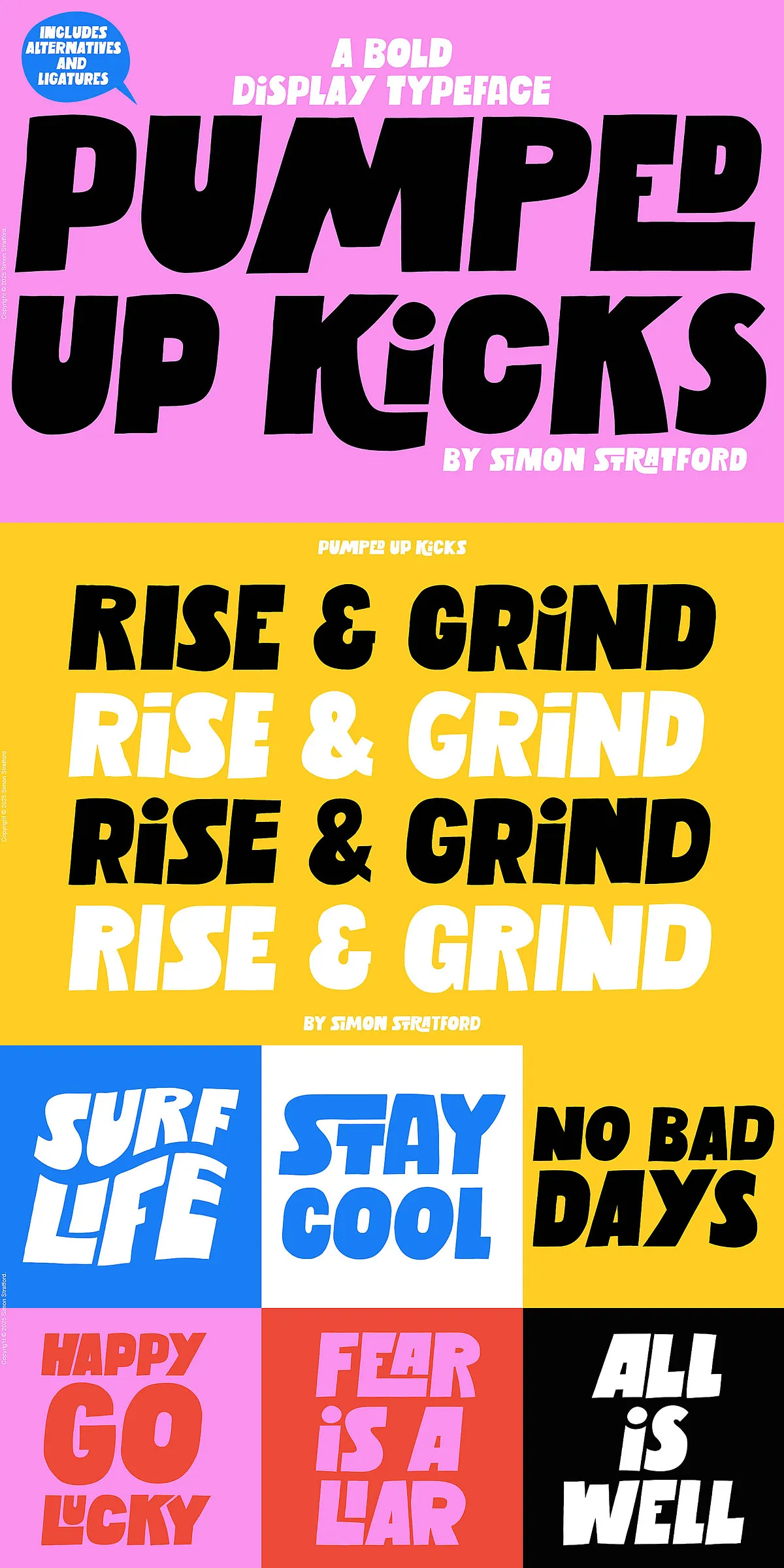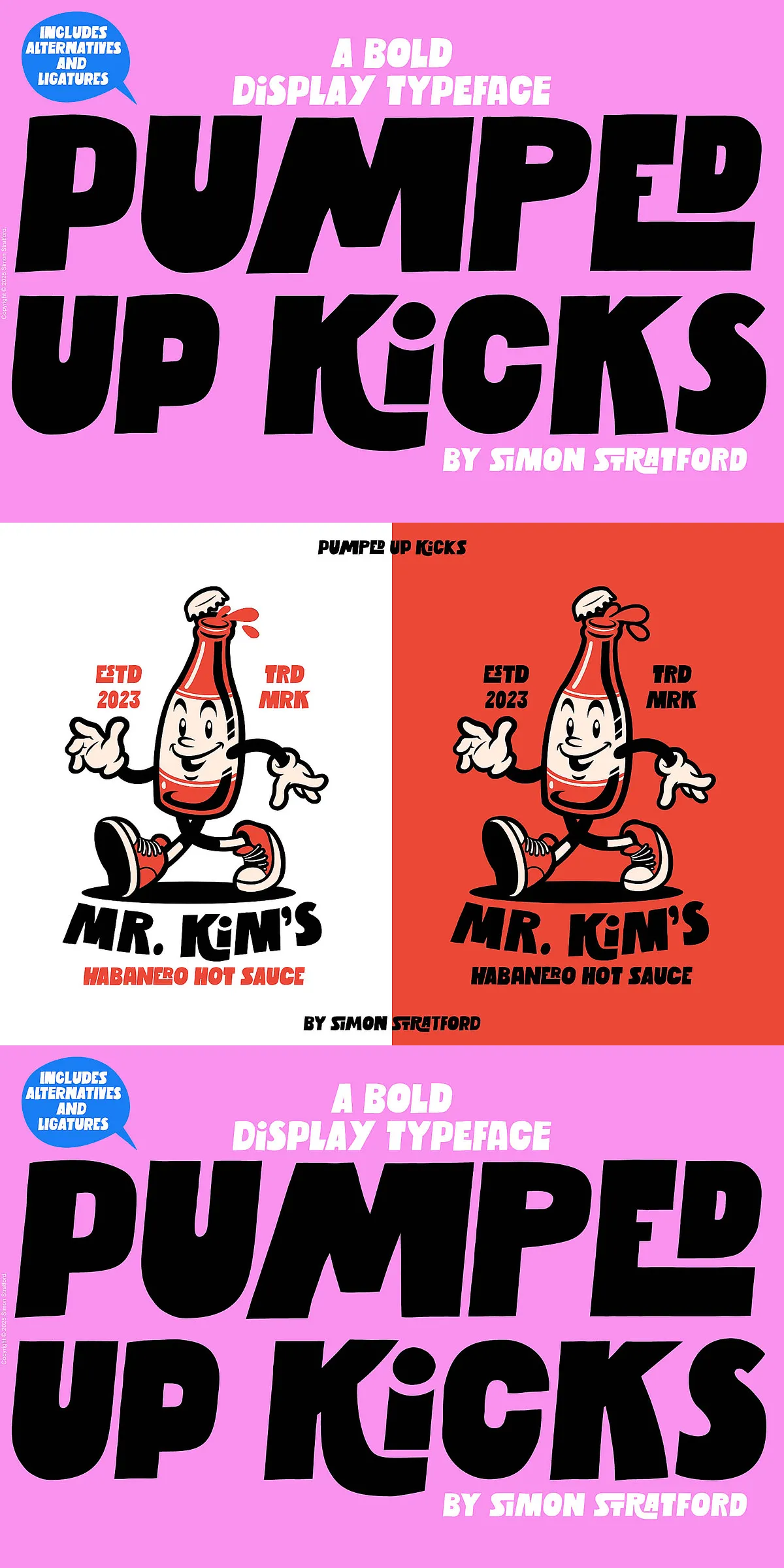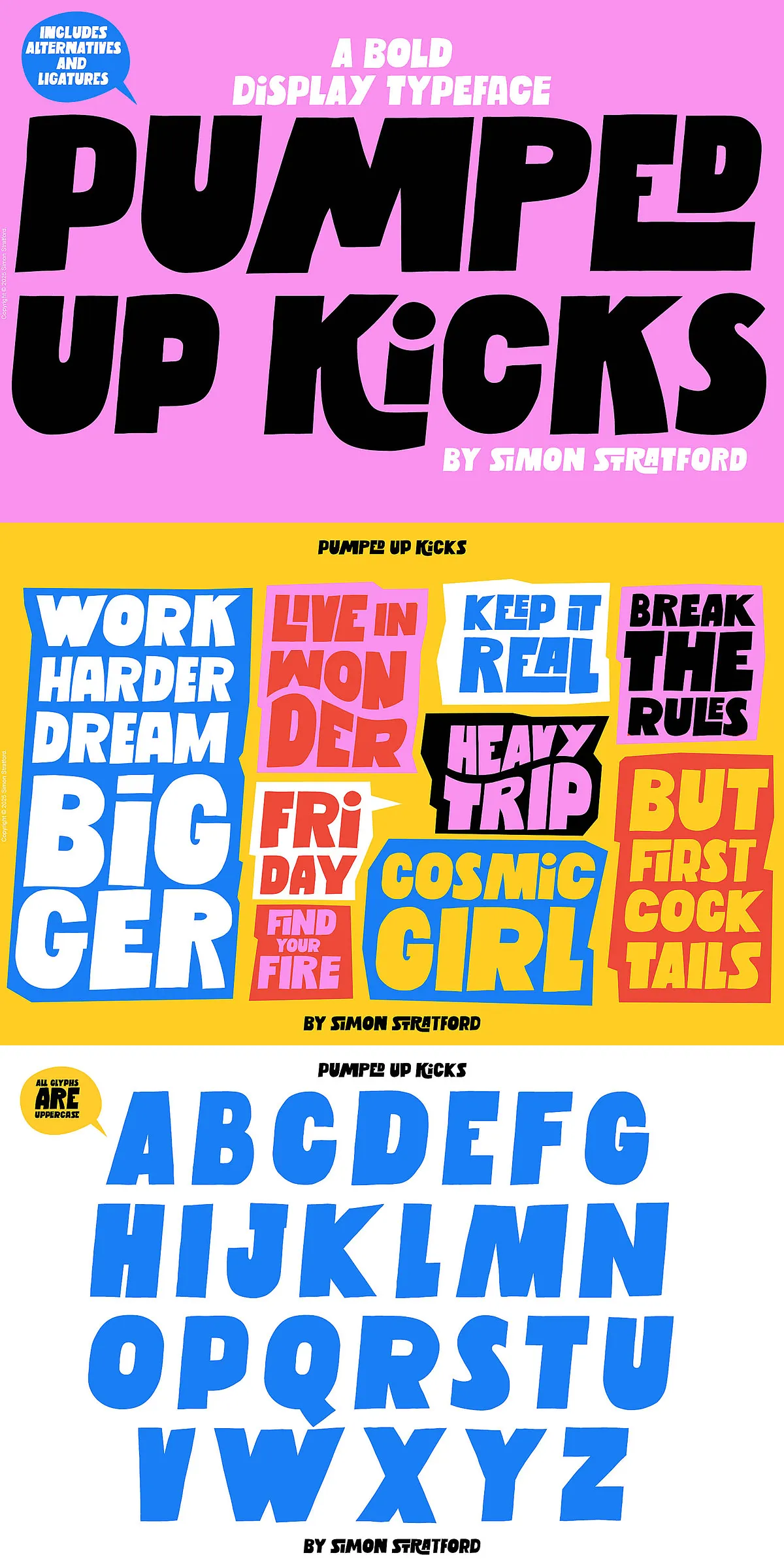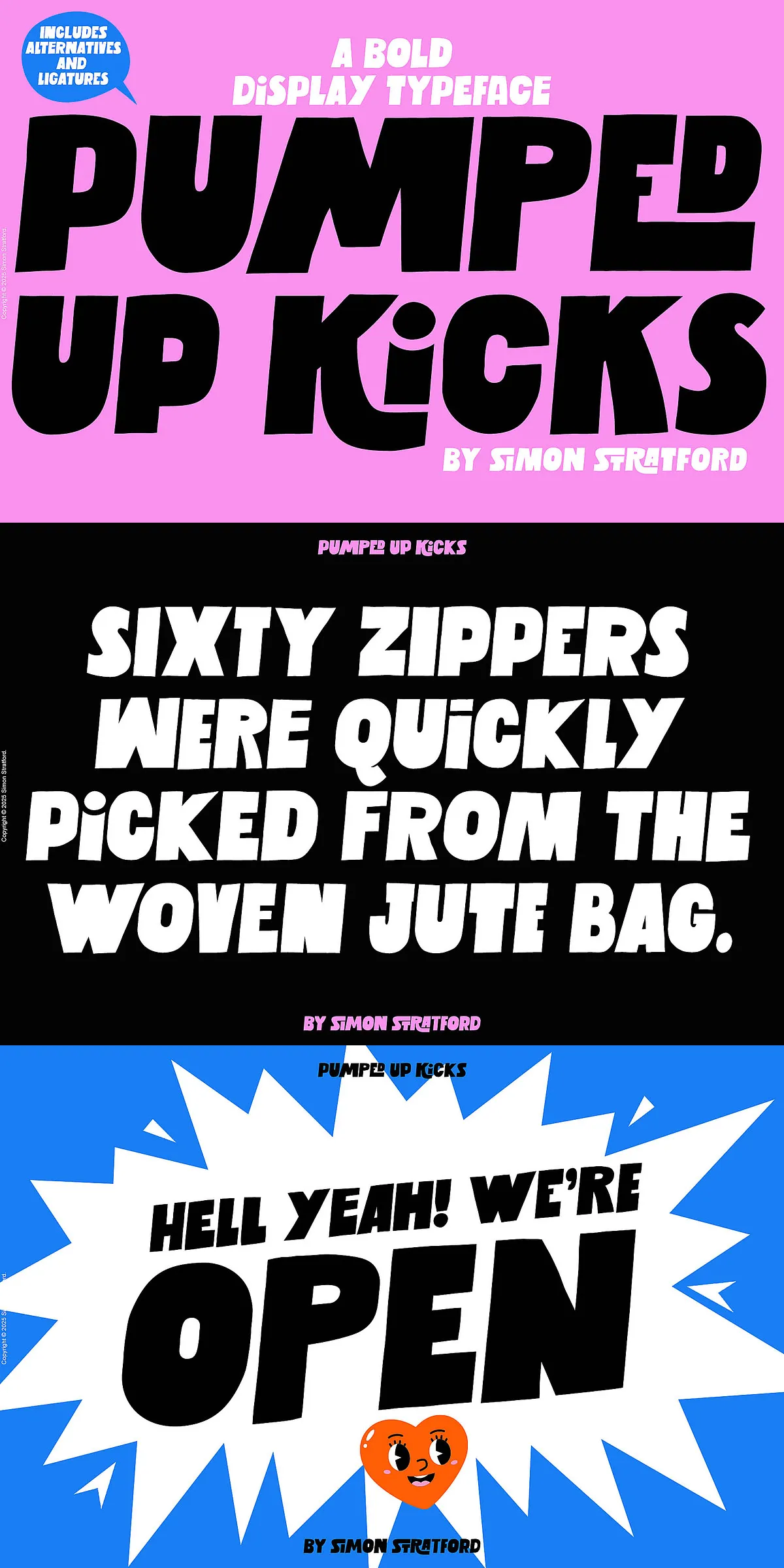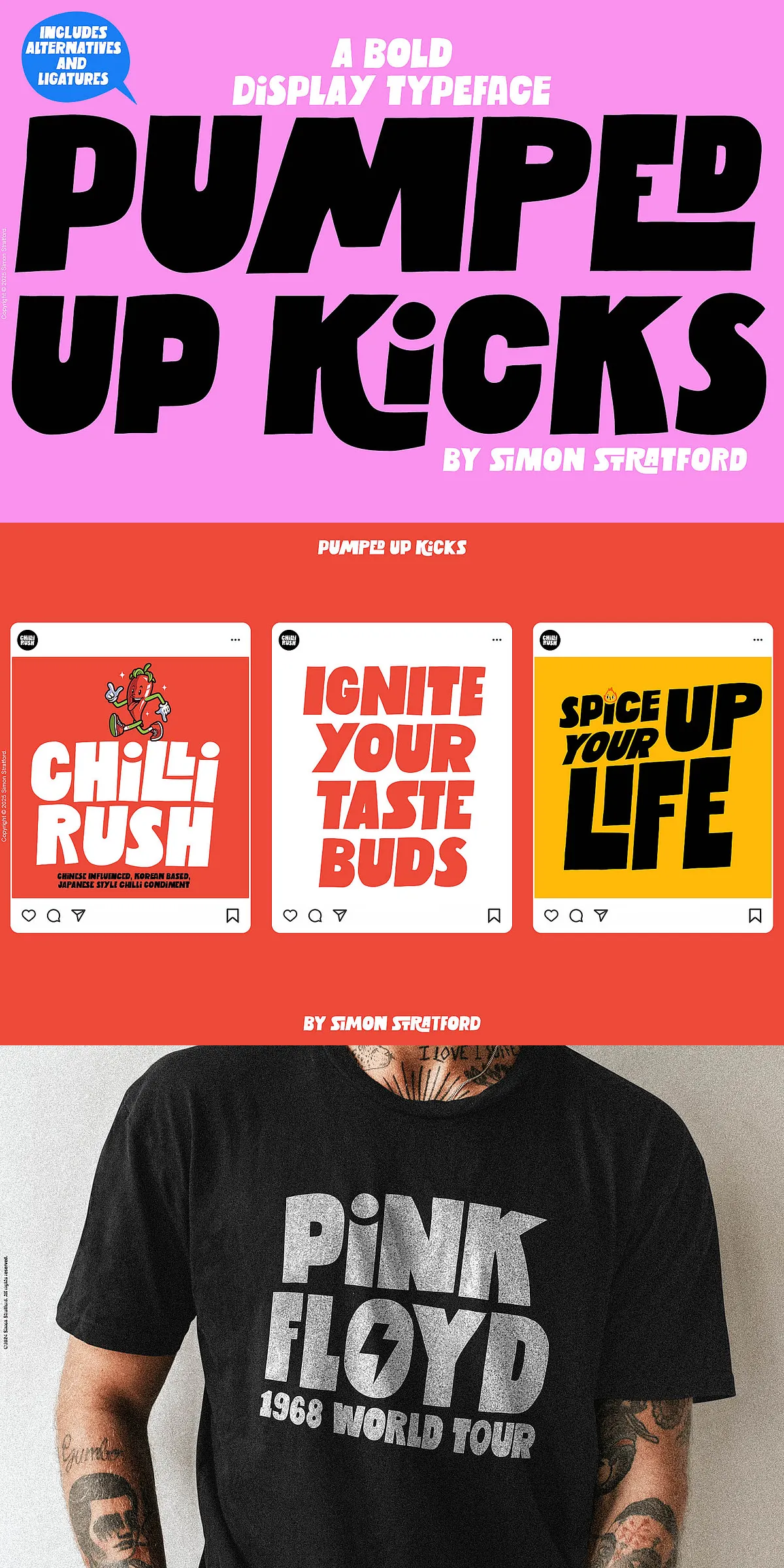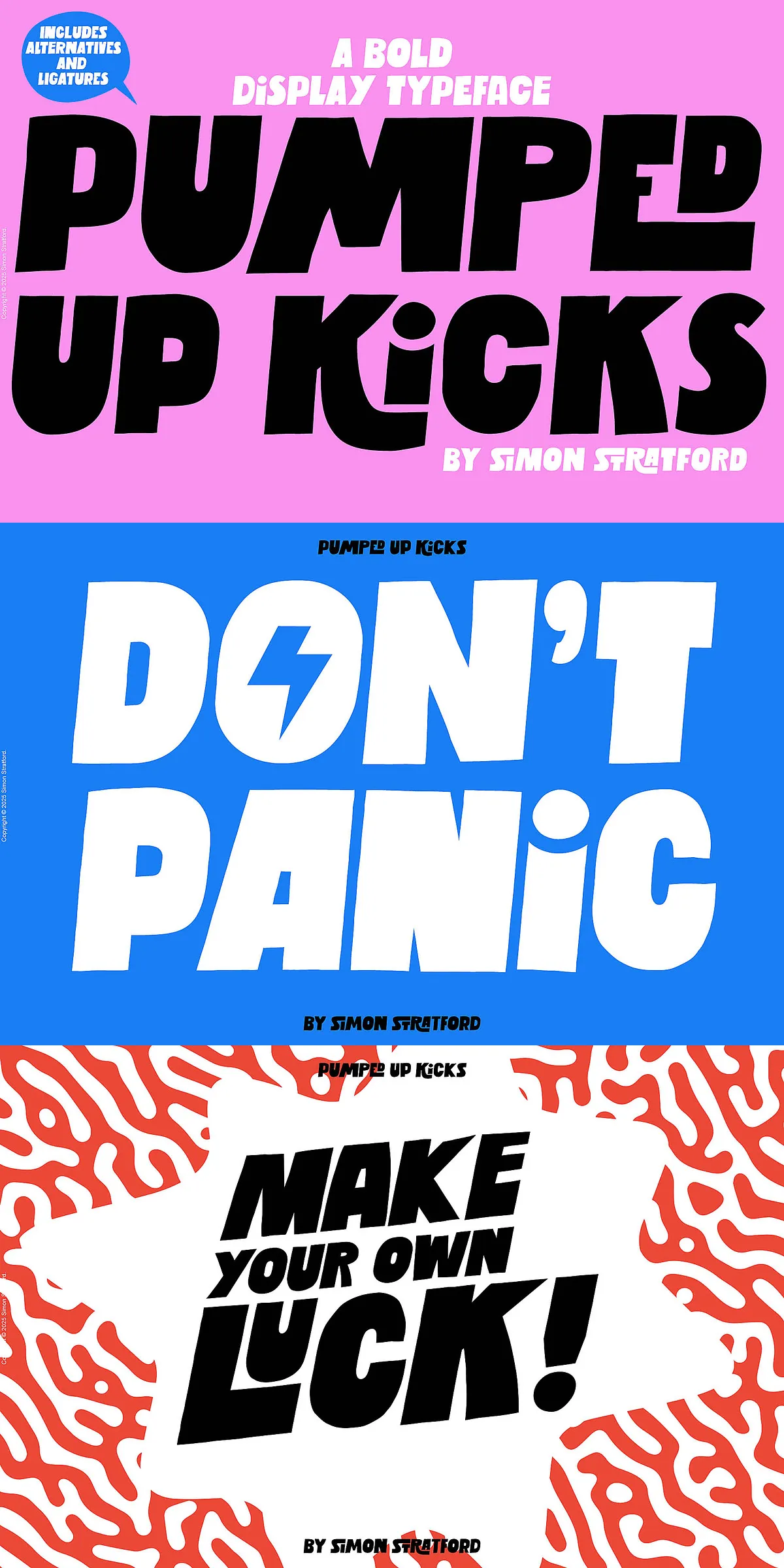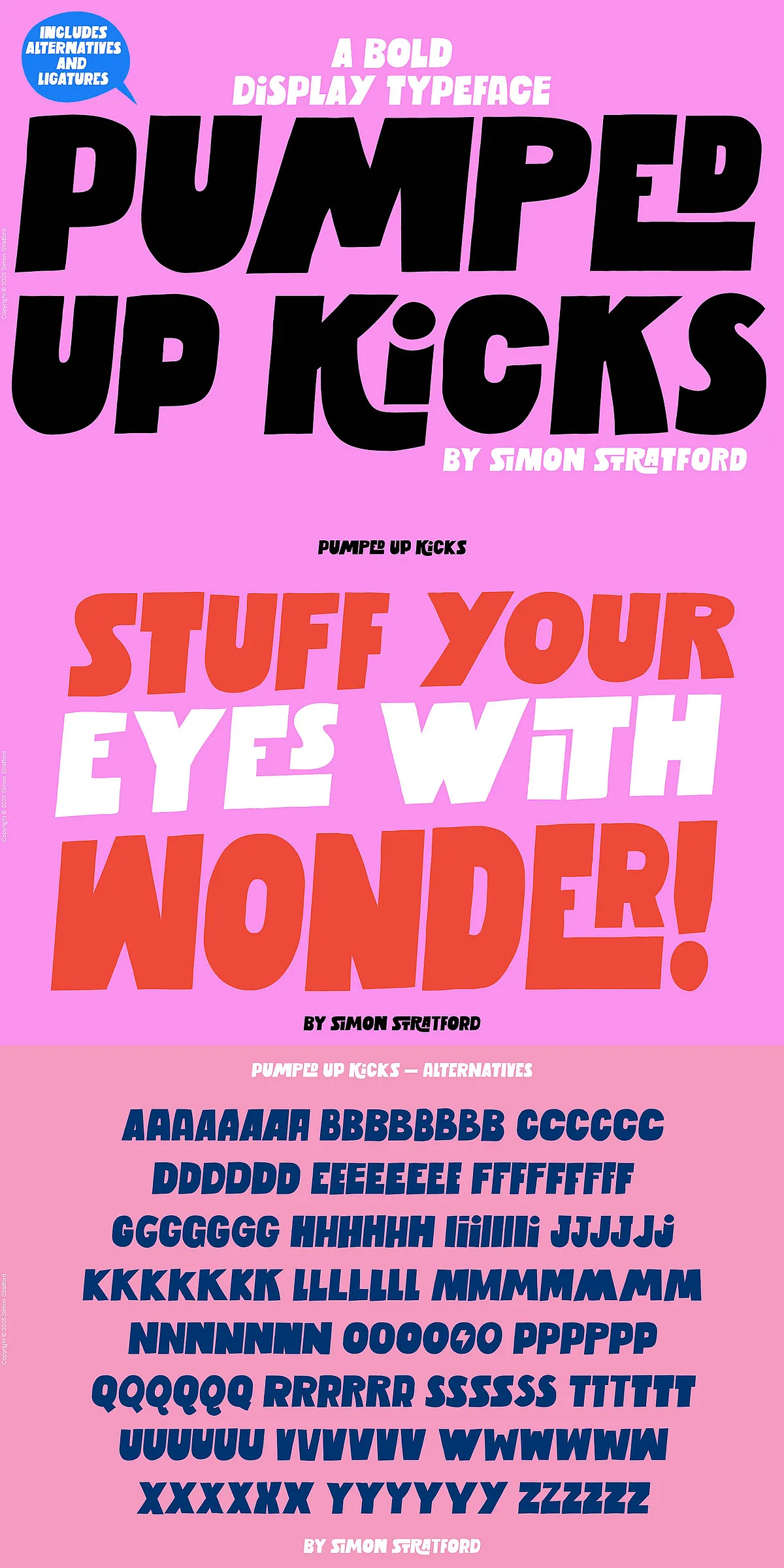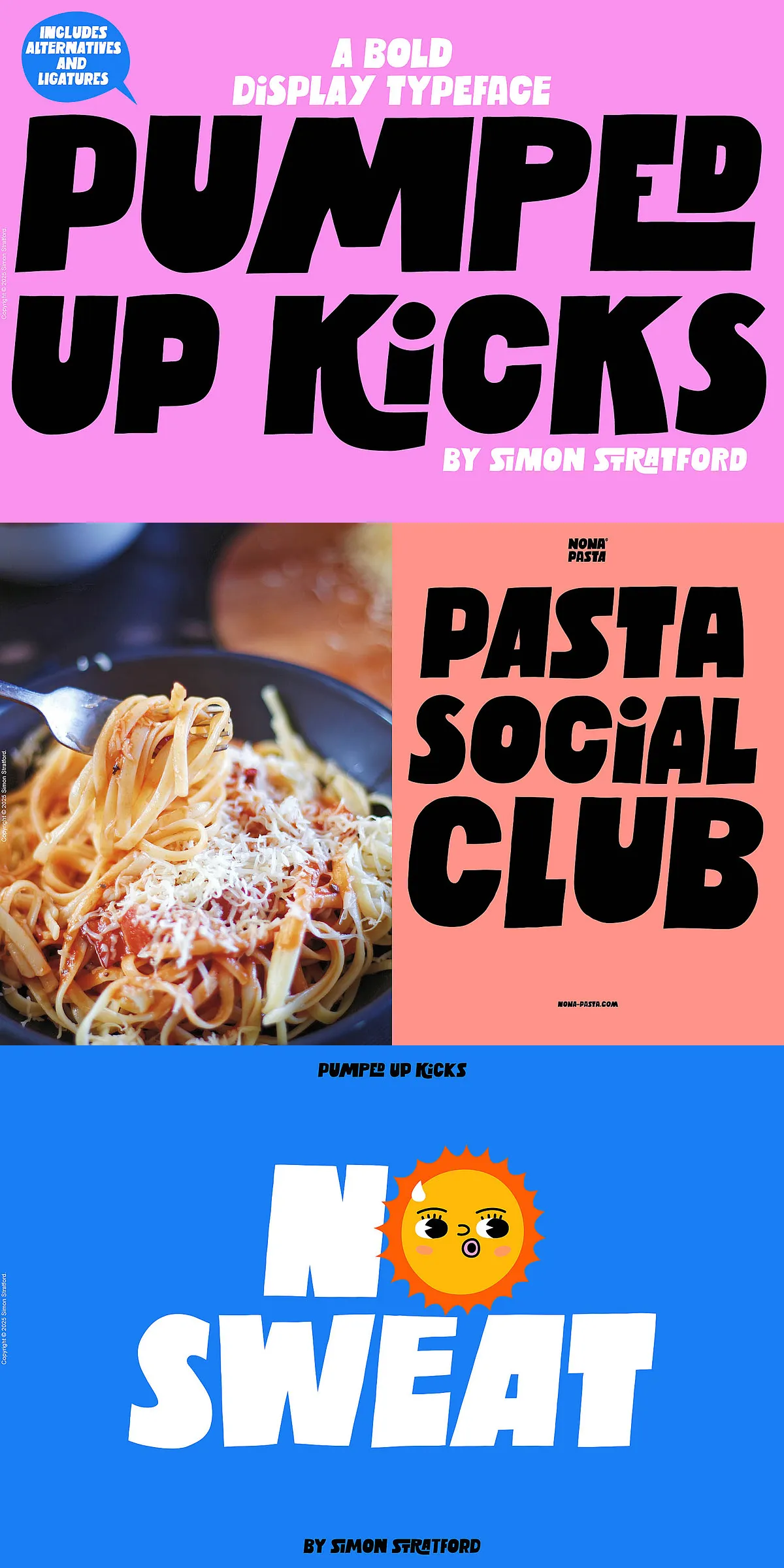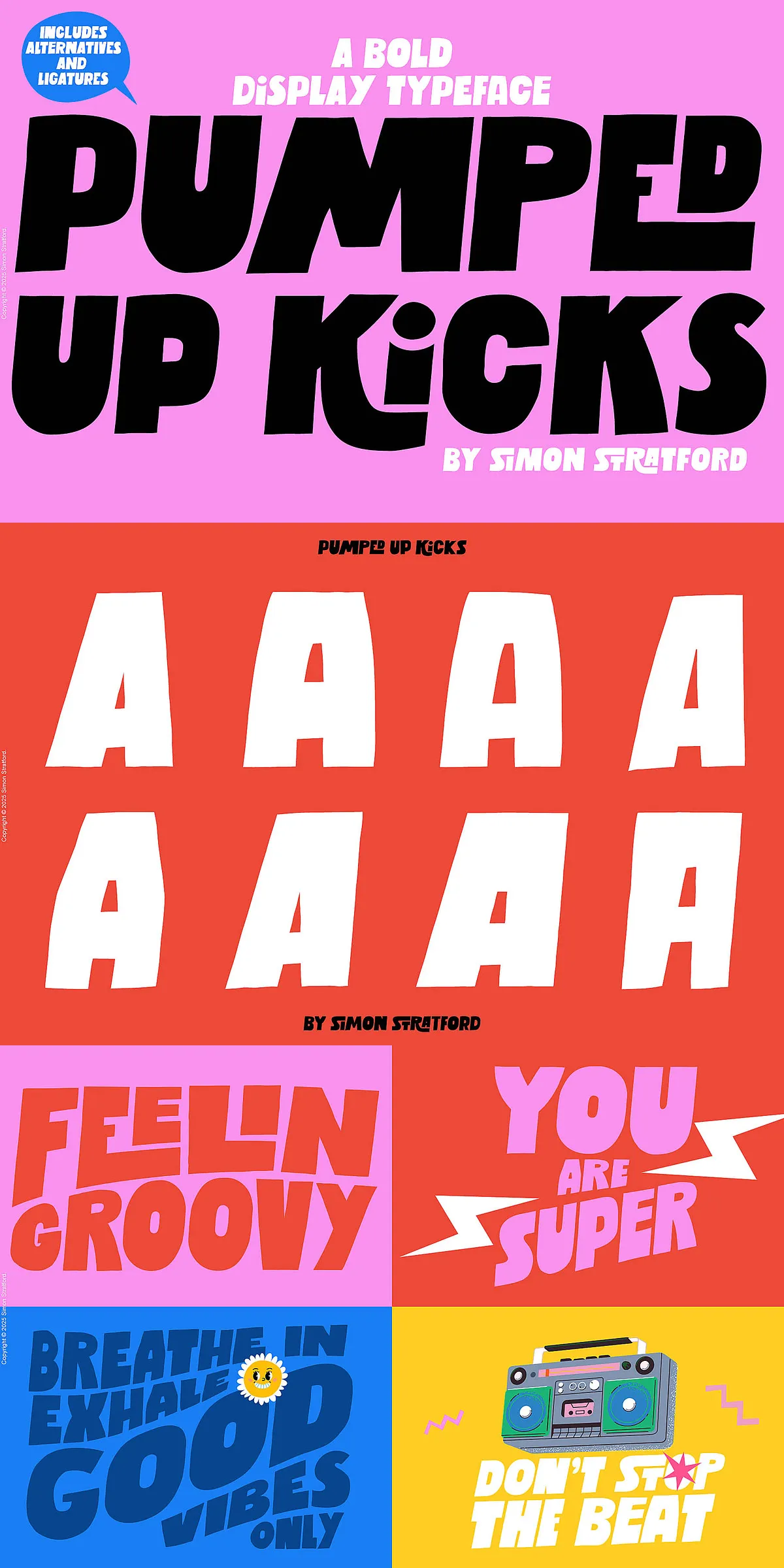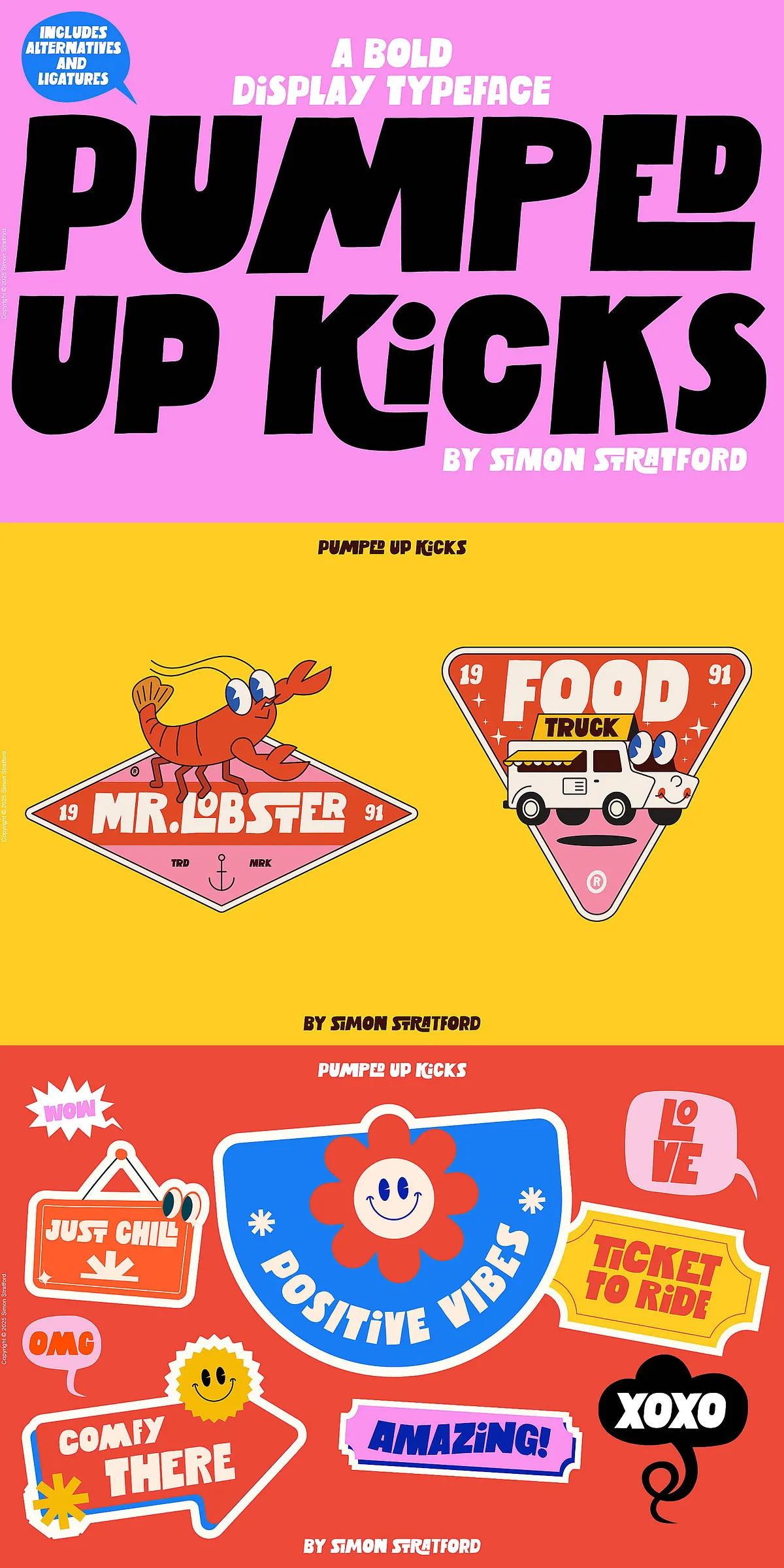
Pumped Up Kicks delivers an immediate burst of personality for designers who demand attention. This sans-serif display font uses large, confident letterforms and playful, handcrafted irregularities to create a bold, memorable voice. Built exclusively in uppercase, the family transforms ordinary headlines into dynamic visual statements and injects energy into branding, packaging, posters, and social media graphics.
Design Character And Distinct Playful Handcrafted Charm
Pumped Up Kicks pairs strong geometric structure with subtle, handcrafted variations that make the typeface feel alive. Lines tilt slightly in places, some characters dip below the baseline, and others lift above it to form a lively rhythm across a word. These purposeful irregularities do not compromise readability; instead, they add a tactile, human quality that reads as fresh and creative at display sizes. Use the font to create attention-grabbing headlines, bold logo marks, or standout promotional materials where personality and legibility must coexist.
Stylistic Alternates And Uppercase Accessibility Overview
This typeface is intentionally all-uppercase. To give designers maximum expressive control, Pumped Up Kicks maps alternate uppercase glyphs to the lowercase key positions. That means typing in lowercase inserts alternate versions of letters, while typing uppercase yields the standard forms. Most characters include multiple stylistic alternatives — many letters ship with three or more variants and some letters offer up to seven — allowing you to vary repeated characters for a handcrafted look. Swap alternates to avoid repetition, craft decorative letter pairs, and increase visual movement within words without sacrificing clarity.
Ligatures, OpenType Features, And How To Activate Them
Pumped Up Kicks includes a set of purposeful ligatures and discretionary glyphs designed to form custom-looking letter combinations automatically. Ligatures that combine letter pairs (for example combinations that create tighter joins or decorative connections) activate when OpenType features are turned on. To access stylistic alternates and ligatures, enable OpenType features in your design software (e.g., OpenType > Stylistic Alternates or discretionary ligatures in Adobe apps, or the OpenType panel in other professional tools). When activated, these features create seamless, attractive typography that keeps your headlines lively and handcrafted.
Practical Use Cases For Bold Headline Typography
Pumped Up Kicks suits projects that require high-impact type with personality. Typical use cases include:
- Signage and environmental graphics where visibility and character matter.
- Brand identity systems that need a bold, memorable display face.
- Posters, flyers, and event collateral that demand immediate attention.
- Packaging and product labels that benefit from artisanal, eye-catching lettering.
- Social media hero images, thumbnails, and story cards that must stop users while scrolling.
- Merchandise, apparel, and limited-edition prints where custom personality reinforces value.
Pairing Recommendations, Implementation Tips, And Licensing Advice
Pair Pumped Up Kicks with clean, neutral body text to maintain hierarchy and legibility: a simple sans or a restrained serif works well as supporting copy. For maximum impact, use generous tracking on short headlines and tighter tracking when refining logotypes. When preparing files for print production, convert text to outlines if a vendor cannot embed fonts. Test the font at multiple sizes and backgrounds: the unique irregularities perform best at display scales and can create delightful texture against simple photographic or solid-color backgrounds.
Pumped Up Kicks gives designers an active, unmistakable voice. It encourages playful composition, encourages experimentation with alternates and ligatures, and helps brands communicate confidently and distinctively. Use it to turn ordinary messages into spirited visual experiences that stand out and stay memorable.